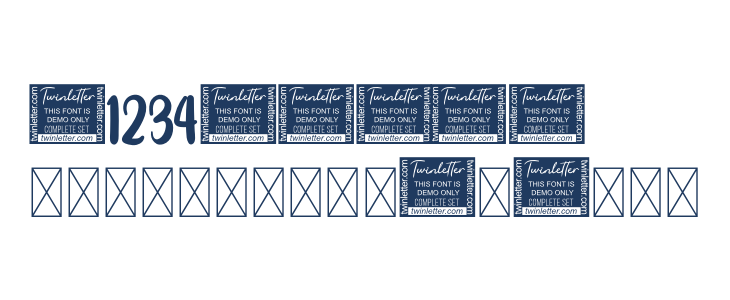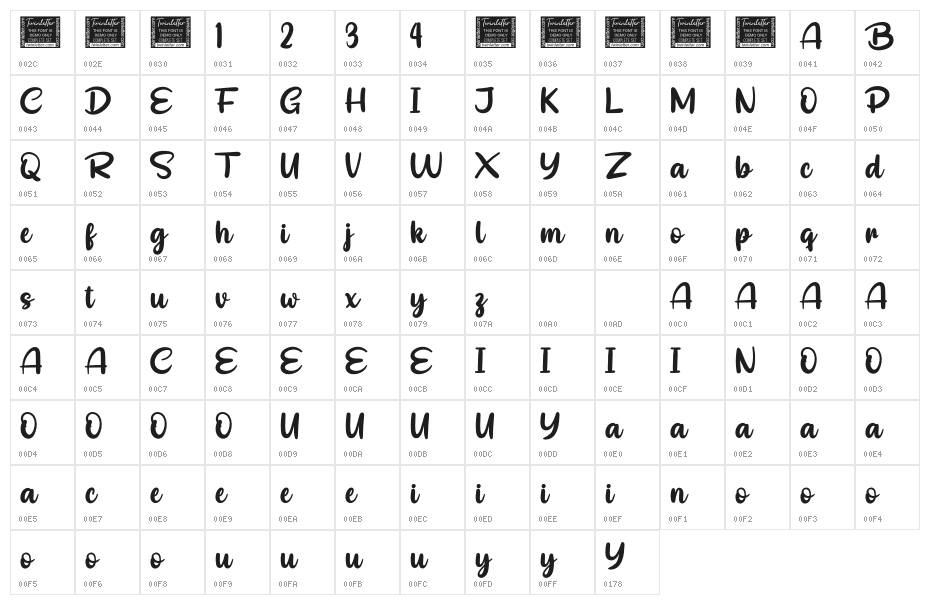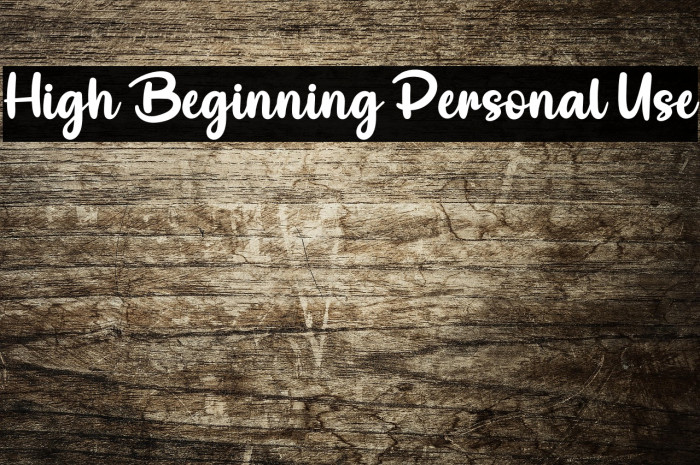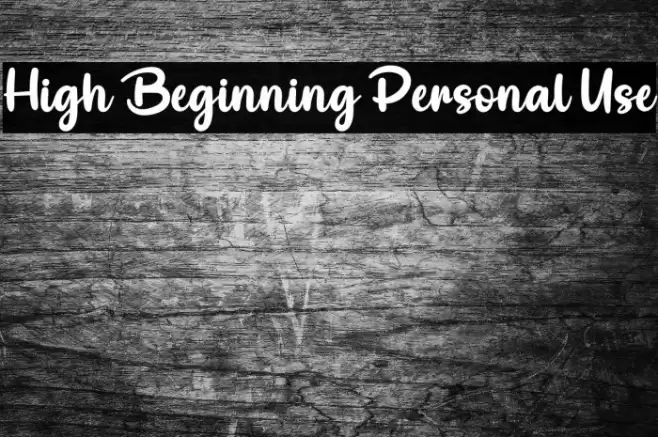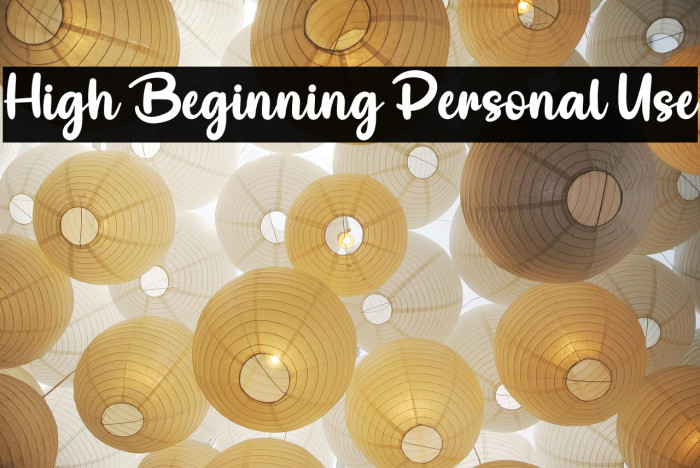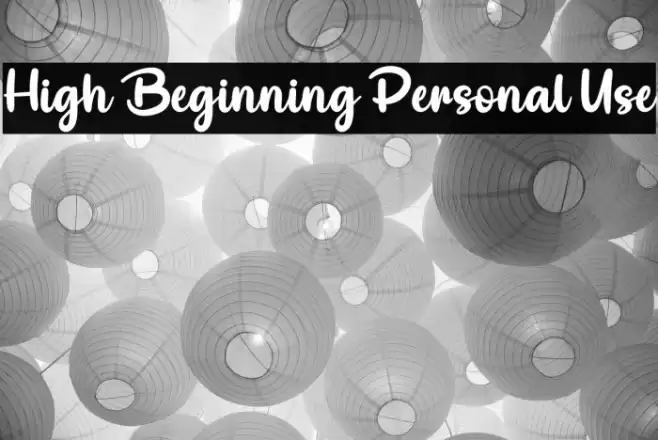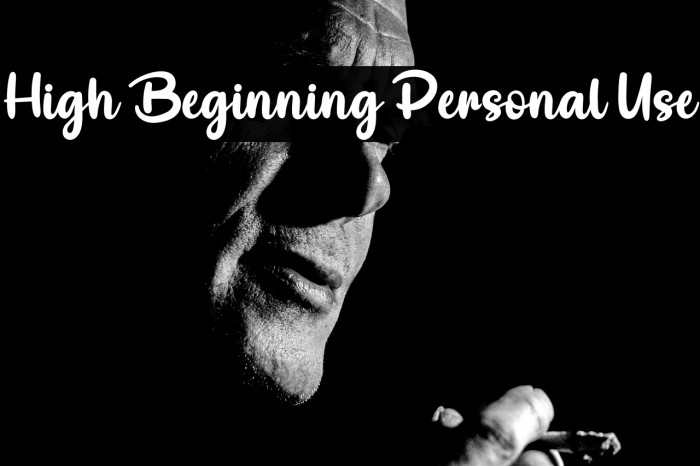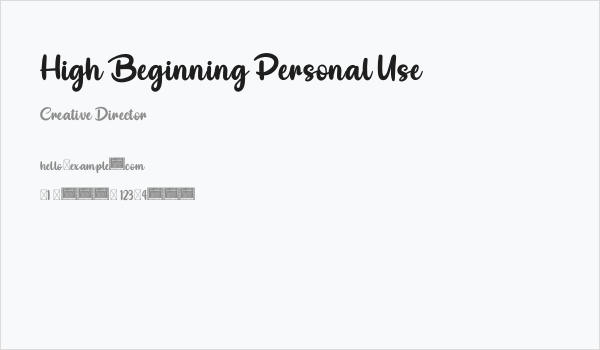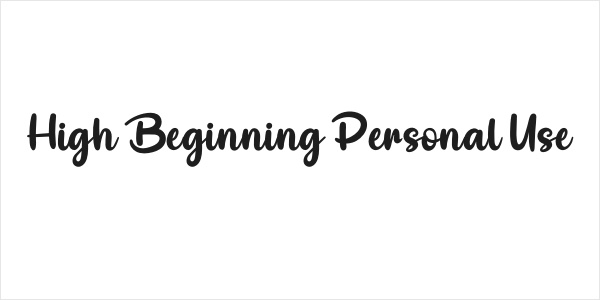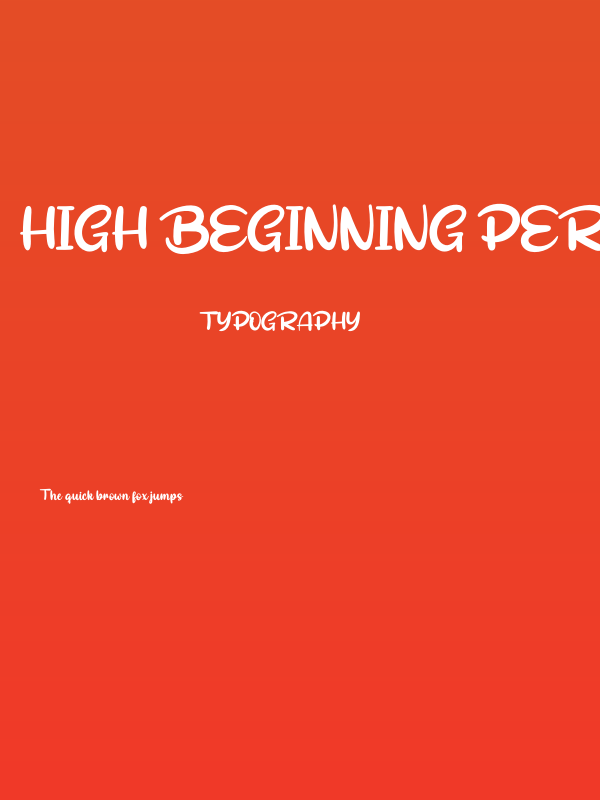
High Beginning Personal Use Font
High Beginning Personal Use Description
This font features a bold, handwritten style with a playful and dynamic appearance. The uppercase letters are slightly slanted, giving a sense of movement and energy. The lowercase letters maintain a consistent flow, enhancing the casual and approachable feel. The numbers are clear and bold, matching the overall aesthetic. Special characters are included, providing versatility for various uses. The font's thick strokes and rounded edges contribute to its friendly and inviting look, making it suitable for creative and informal projects.
| Proposed Projects | Ideal for greeting cards, social media graphics, branding projects, and playful invitations. |